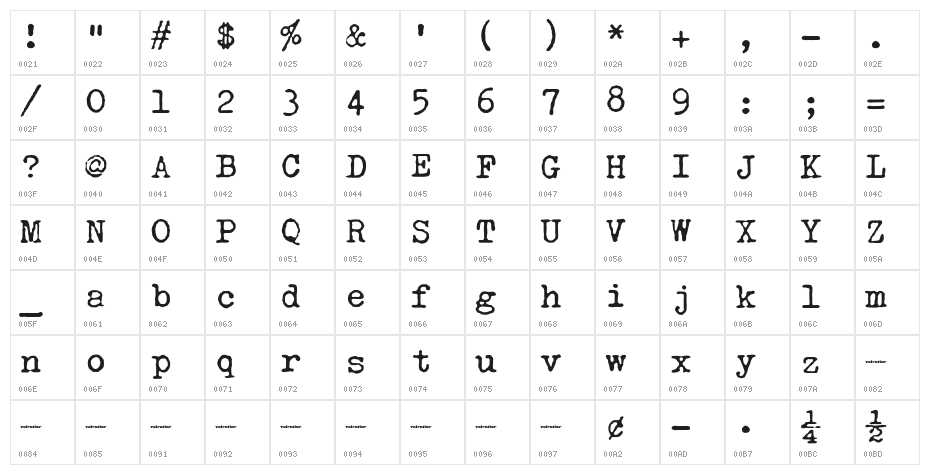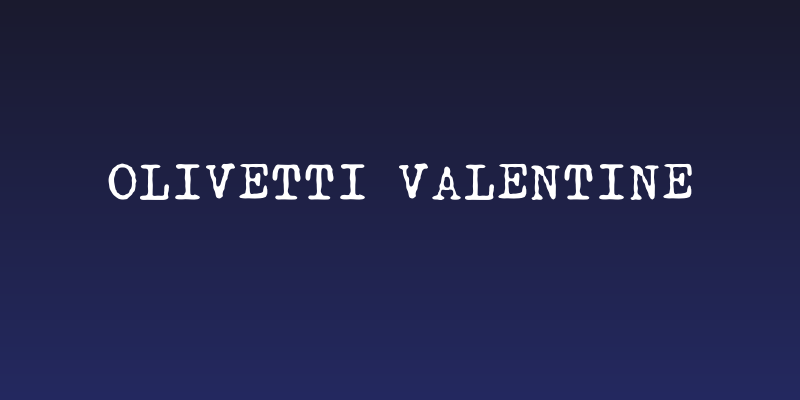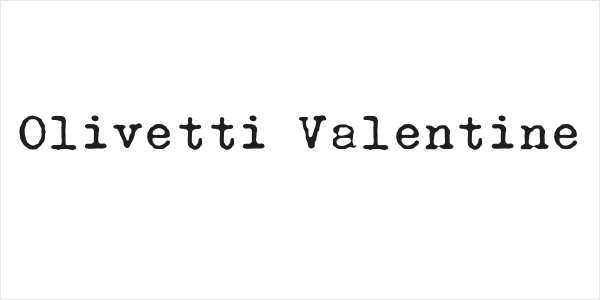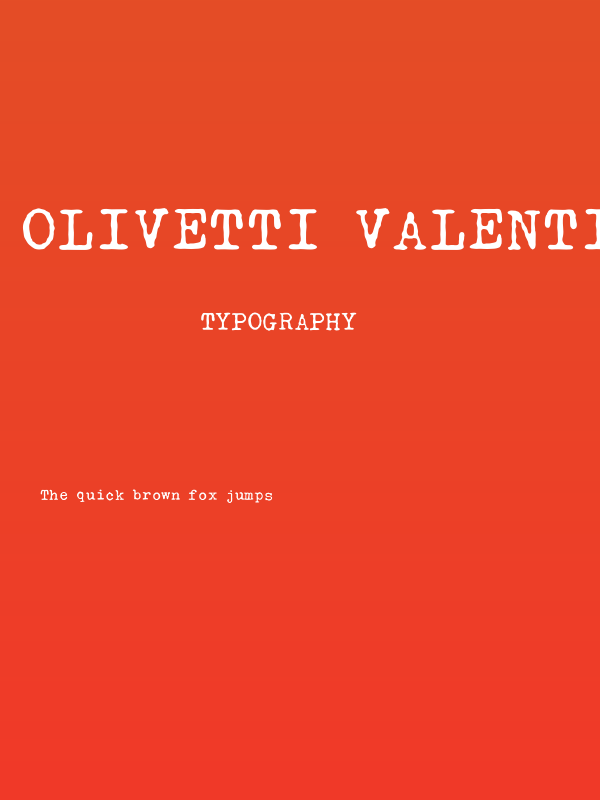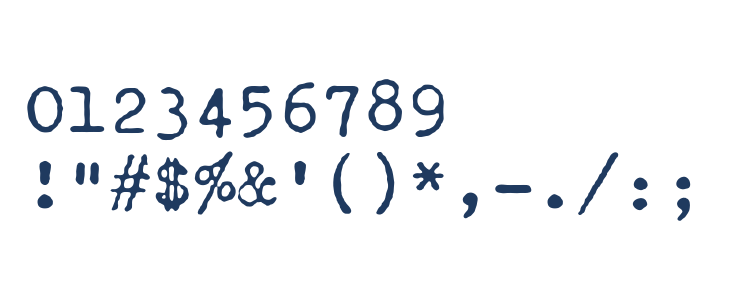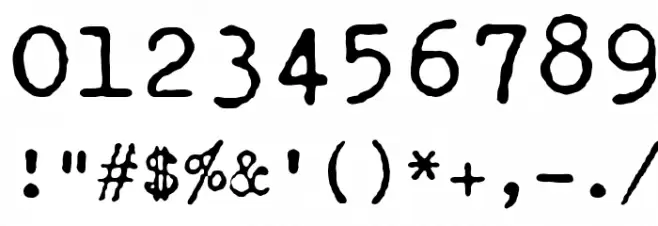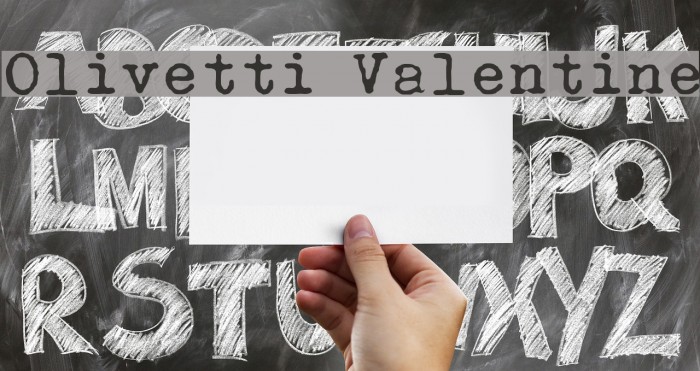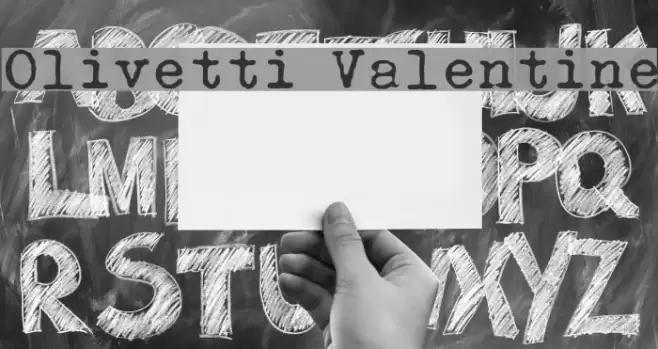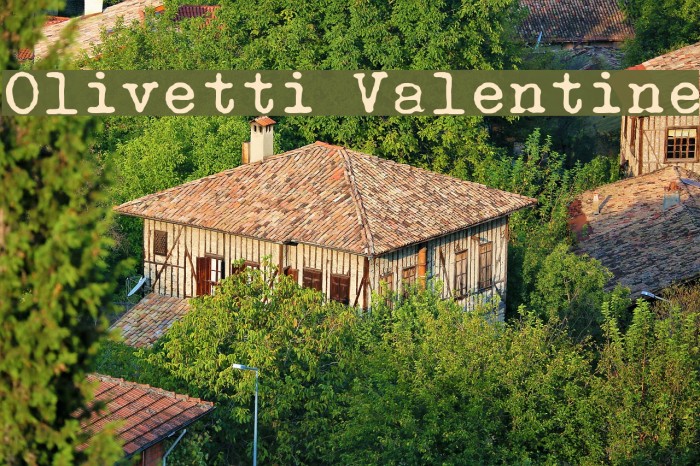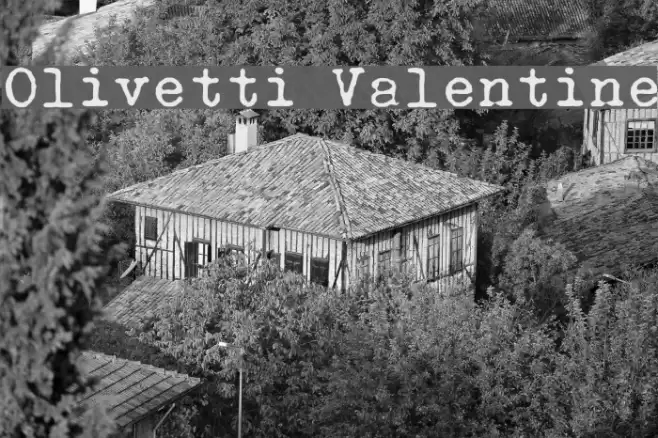
Olivetti Valentine Font
Olivetti Valentine Description
This typewriter-style font exudes a vintage charm with its uneven, slightly distressed appearance, reminiscent of old typewritten documents. Each character is distinct, with subtle variations that add to its authentic, mechanical feel. The uppercase letters are bold and prominent, while the lowercase letters maintain a consistent style, providing a cohesive look across the alphabet. Numbers and special characters are crafted with the same attention to detail, ensuring readability and aesthetic appeal. The font's unique texture and character make it ideal for projects that require a retro or nostalgic touch.
| Overall Style | Vintage |
| Use Case | Headlines, Logos, Decorative text |
| Proposed Projects | Ideal for retro-themed designs, vintage posters, typewriter-style documents, and creative projects needing a nostalgic touch. |